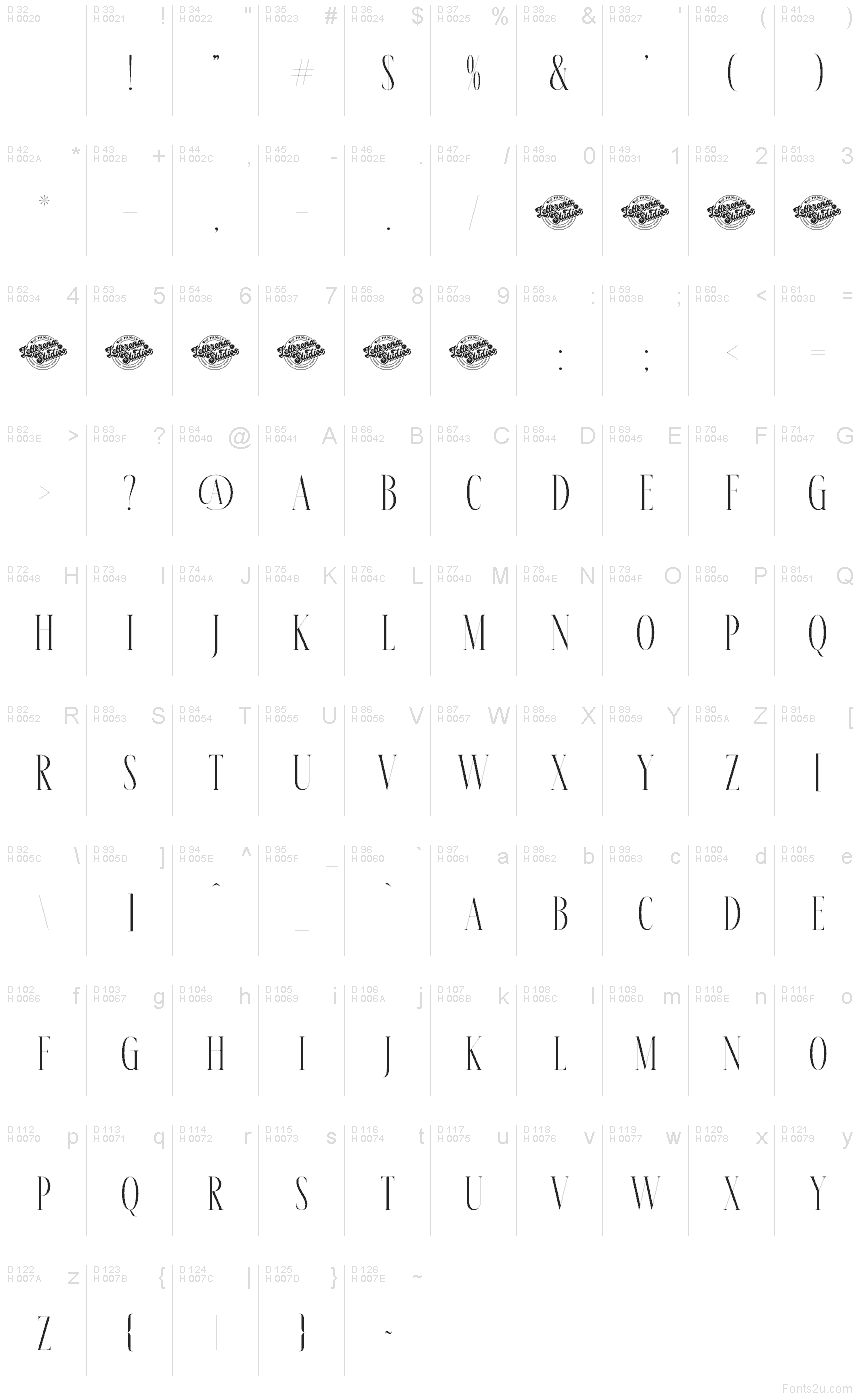
Meksron DEMO VERSION
Meksron font by Letterena Studios is a free serif typeface that instantly gives layouts that sleek, editorial polish you see in luxury magazines. The letters are tall, razor-thin, and refined, with elegant vertical strokes that feel like ink drawn with a precision nib. There’s a cool, runway-ready sharpness here that makes even a single word look styled and intentional.
Using Meksron, headlines and wordmarks take on a couture, fashion-house attitude, making this free font a natural fit for beauty branding, perfume packaging, upscale posters, magazine covers, lookbooks, and portfolio titles. It shines in large sizes where its slender forms can really breathe. For balance, pair Meksron with a quiet, neutral sans serif for body text and let this serif carry the hero moments.